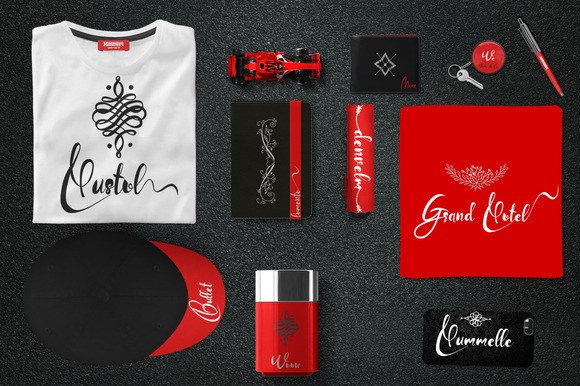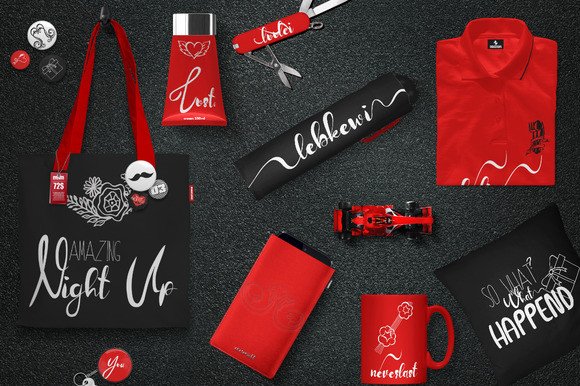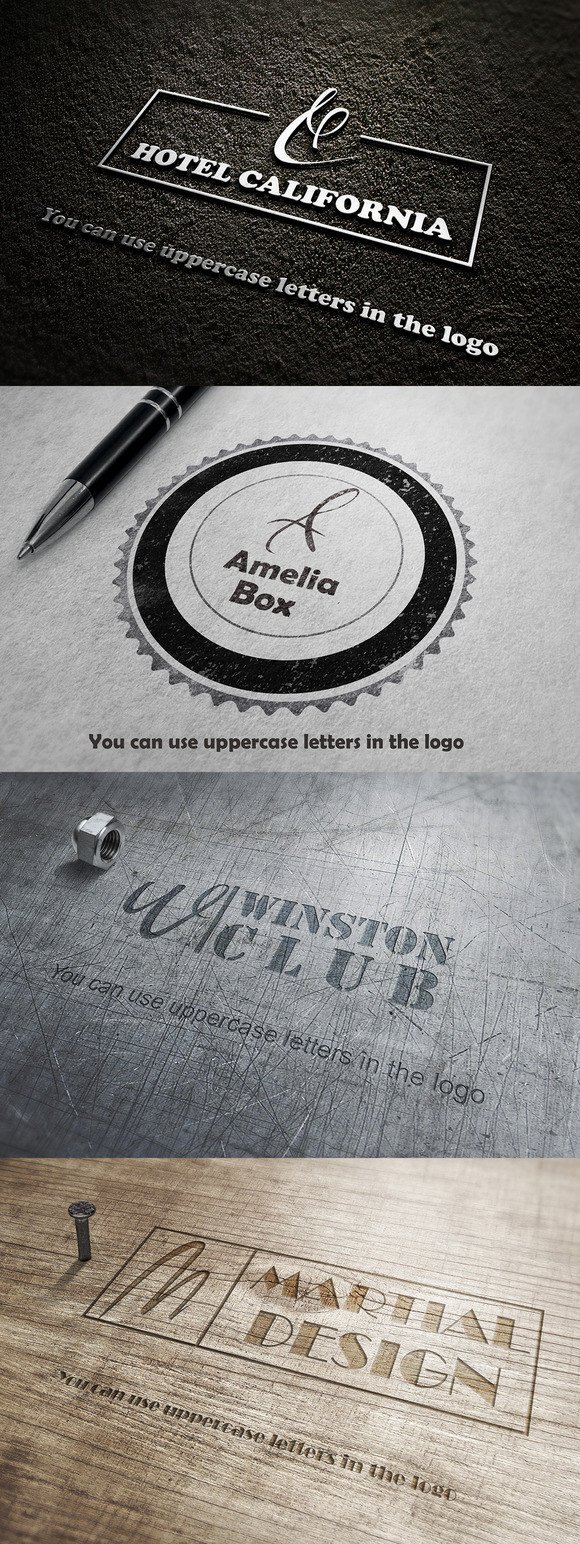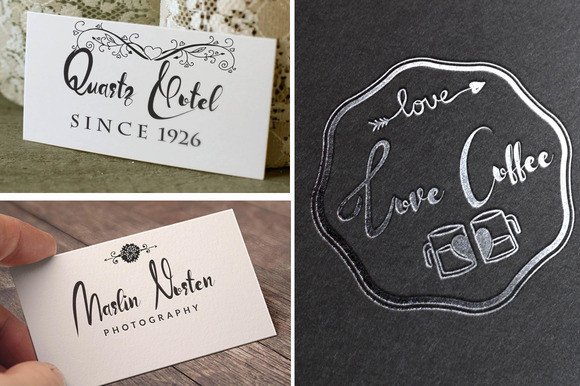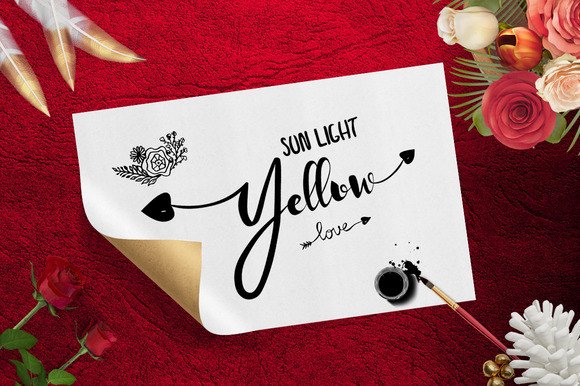
La Alorta Font – Free Download
Introduction to La Alorta Font
La Alorta is a beautiful & playful typeface.
Perfect for designing invitations, greeting cards, branding materials, business cards, quotes, posters and more .
Key Features of La Alorta Font
Why Choose La Alorta Font?